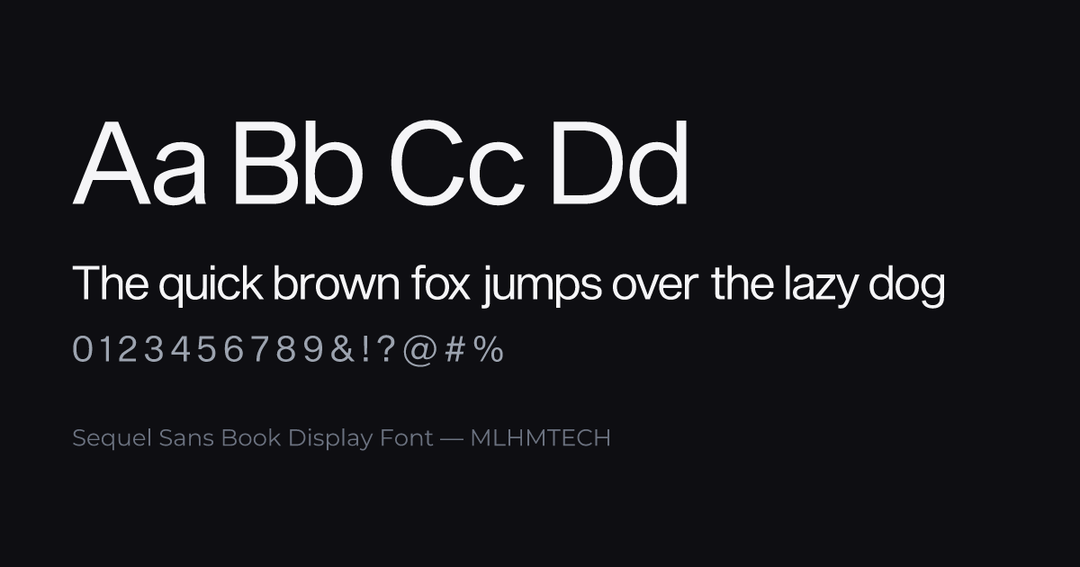
Sequel Sans Book Display Font
Sequel Sans Book is a versatile geometric sans-serif font ideal for modern branding, headlines, and editorial design. Its clean lines and balanced proportions ensure legibility across various media.
Sequel Sans Book is a contemporary sans-serif typeface that combines geometric precision with a warm, approachable feel. Its uniform stroke weights and open apertures make it highly legible at both small and large sizes, making it a reliable choice for body text as well as display use.
This font is part of the Sequel Sans family, known for its extensive range of weights and styles. The Book weight is particularly suited for longer passages of text, while still retaining enough character for headlines and branding. Its neutral yet distinctive design allows it to pair well with serif fonts for contrast or stand alone for a minimalist aesthetic.